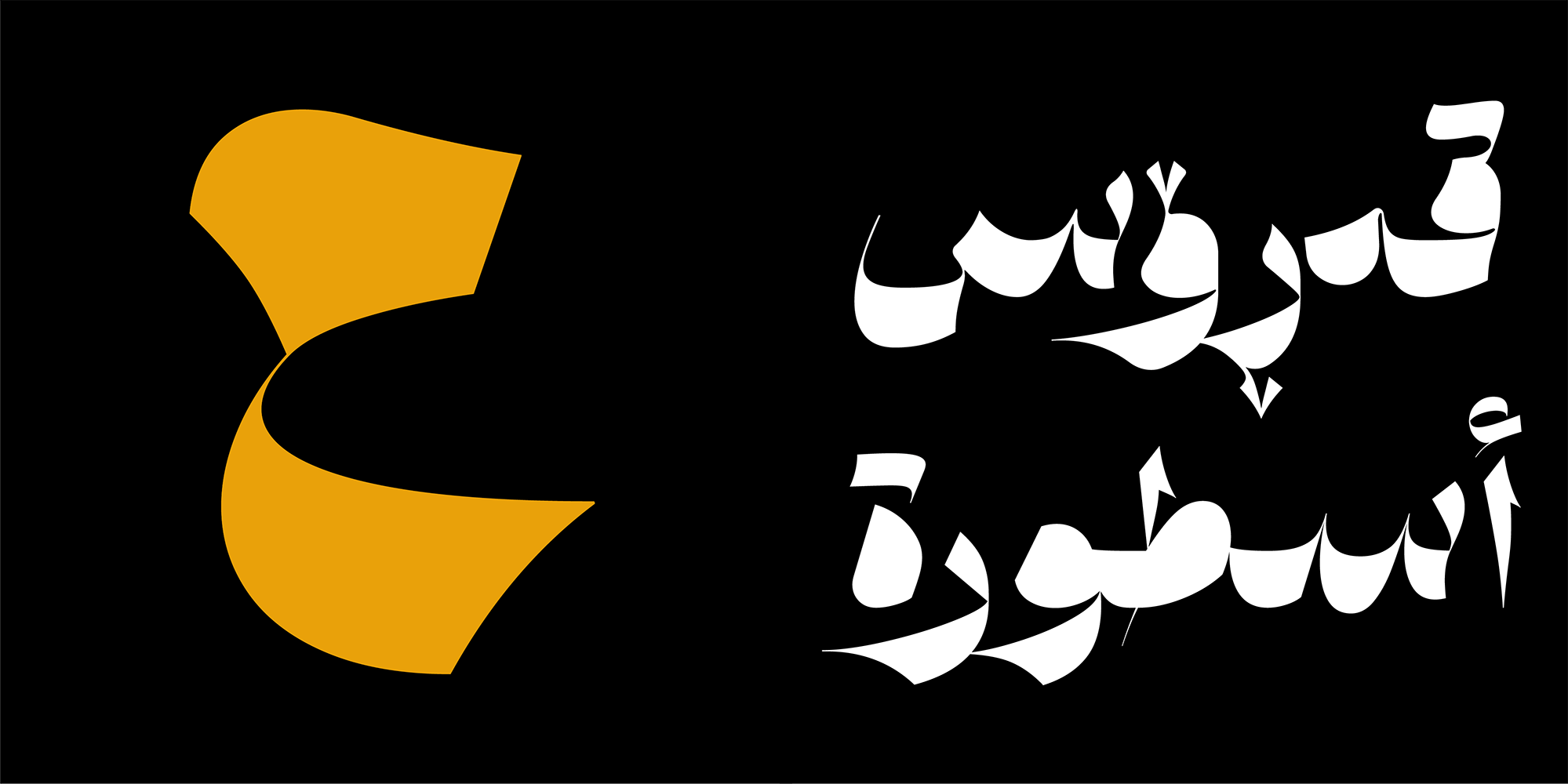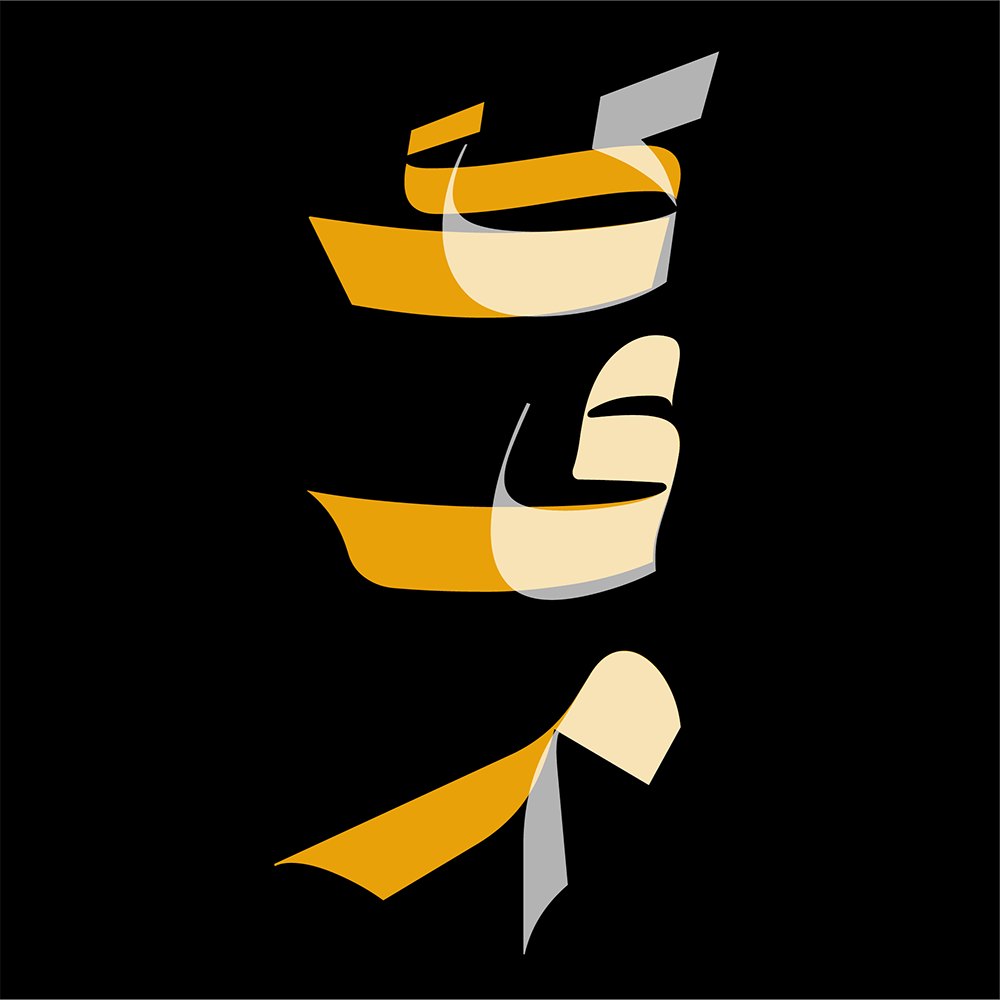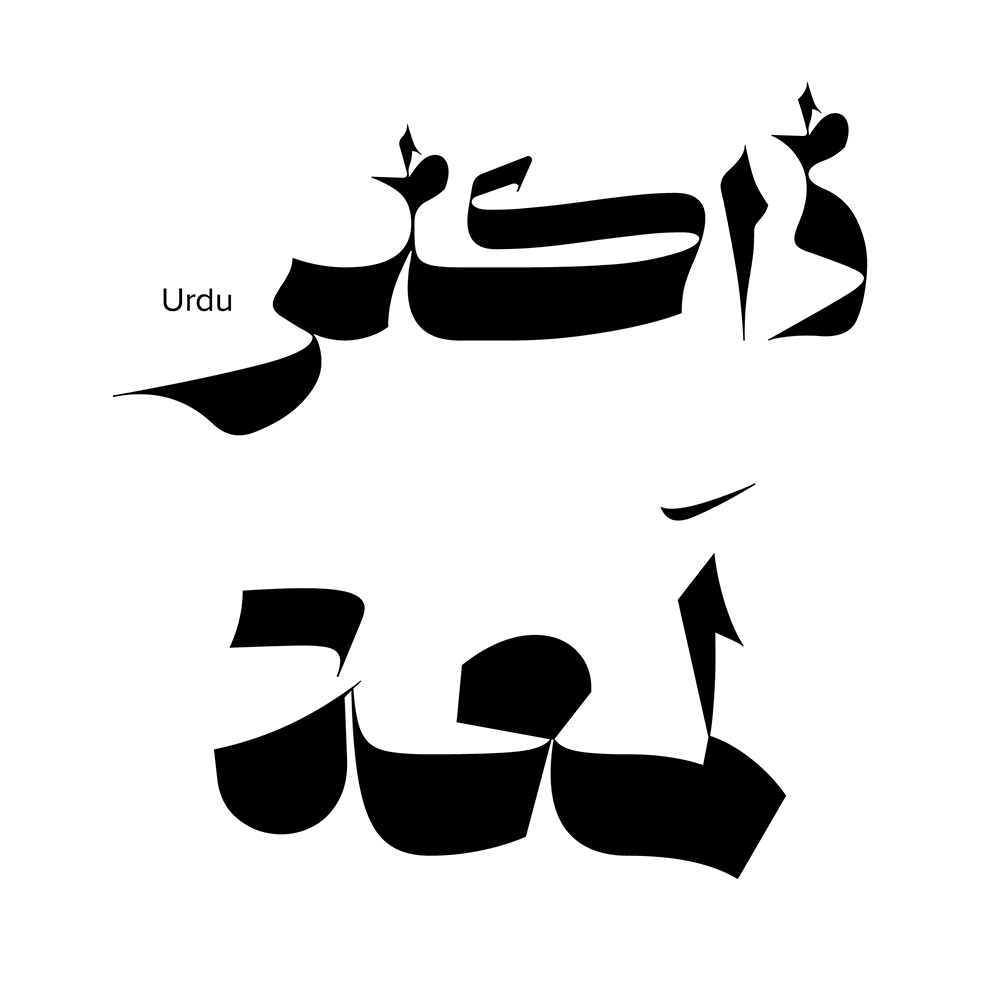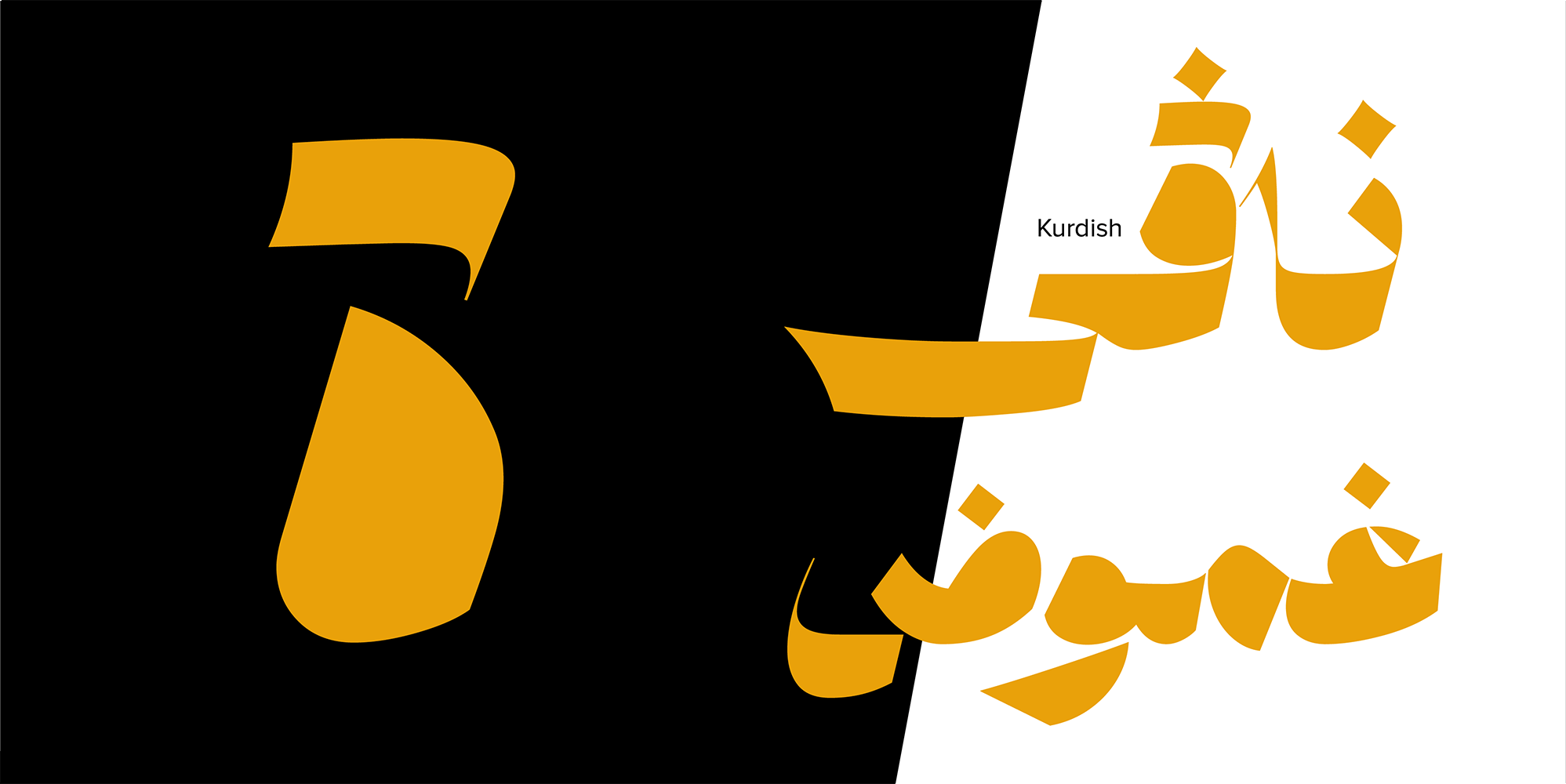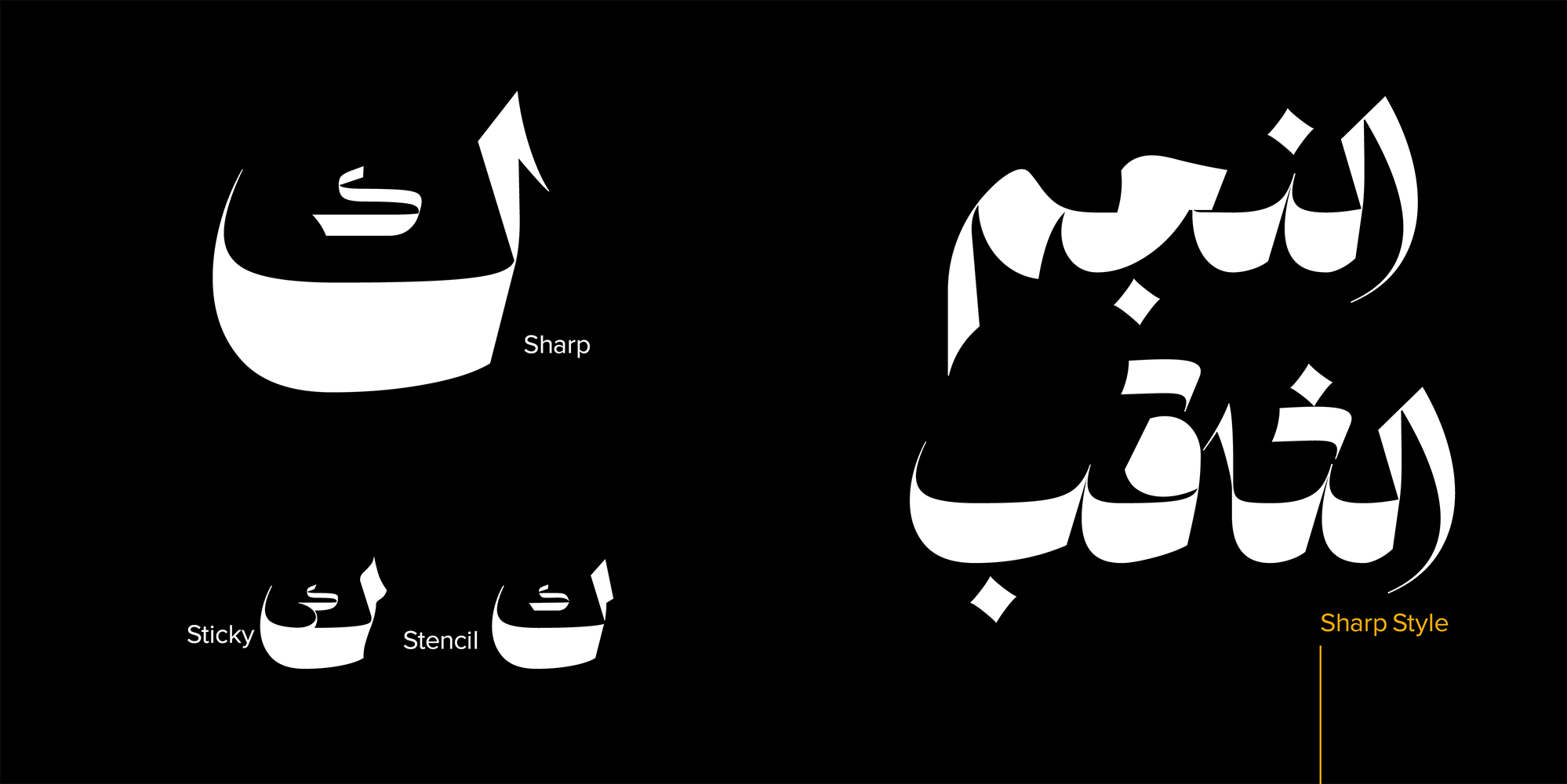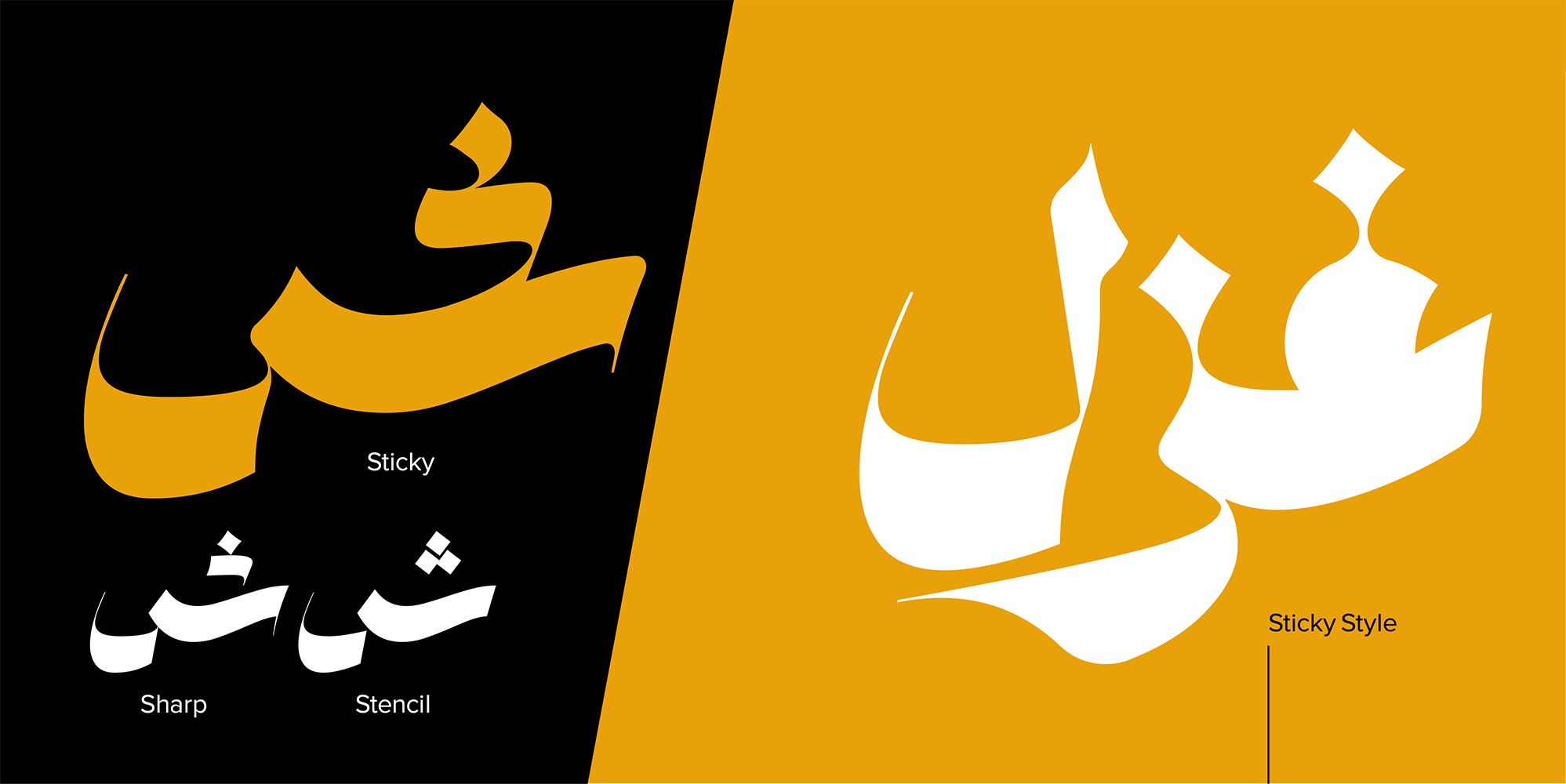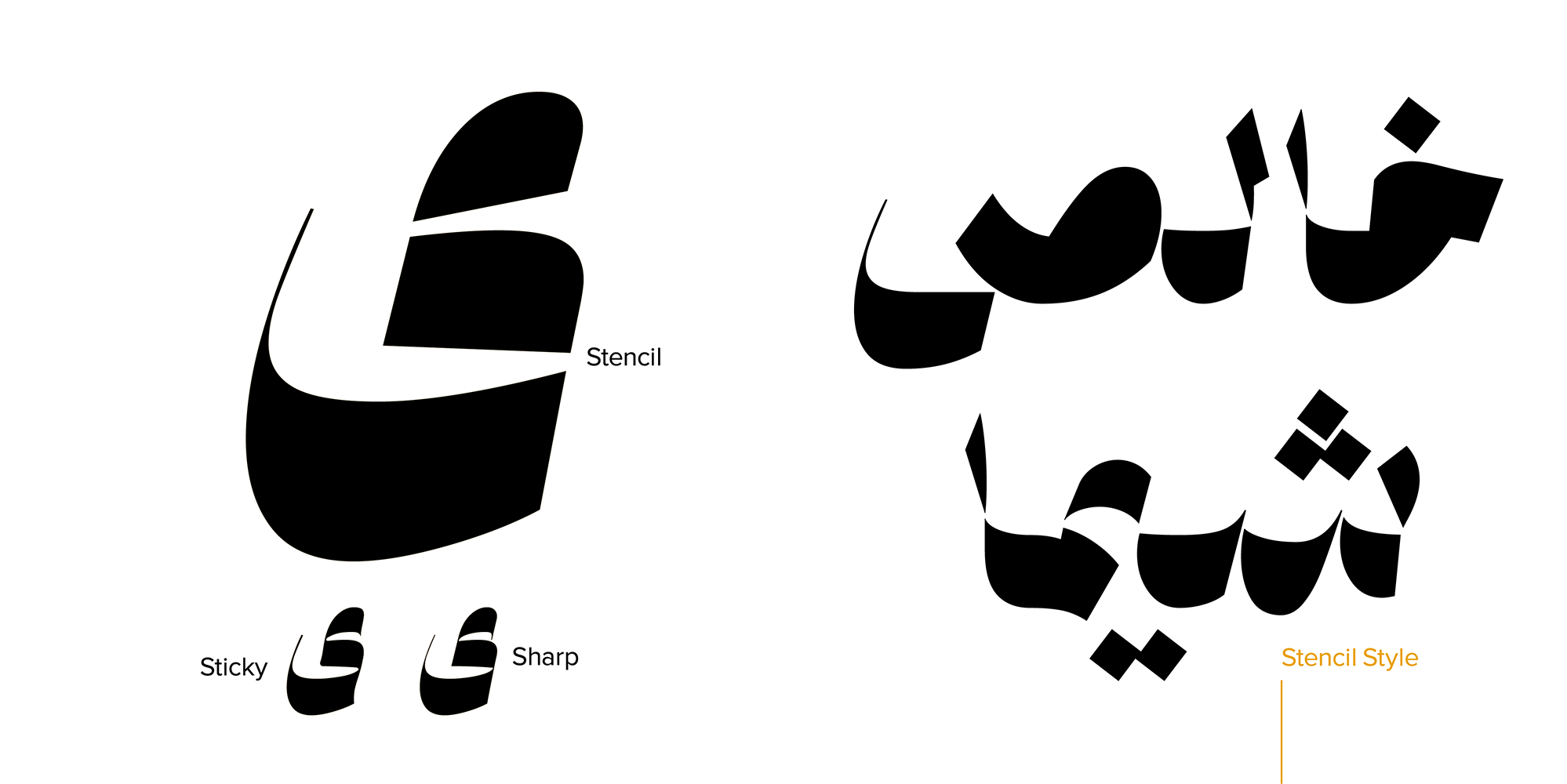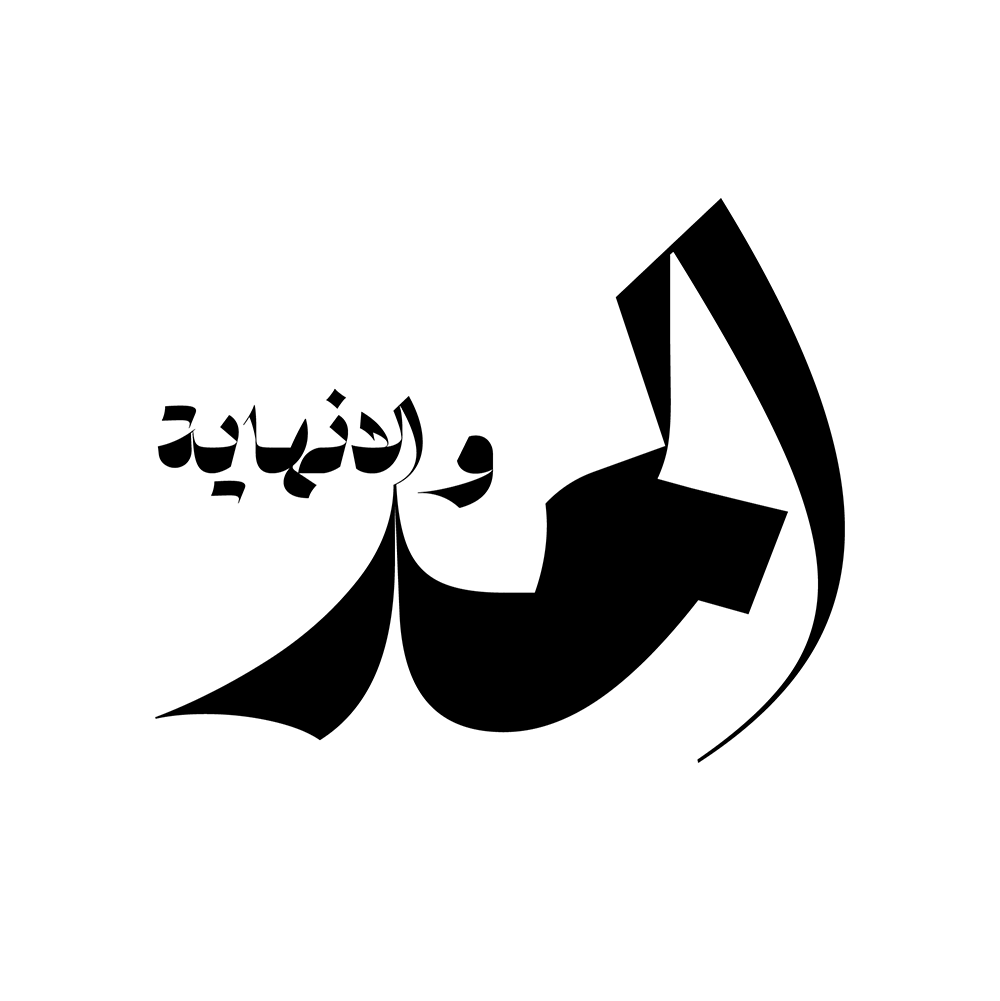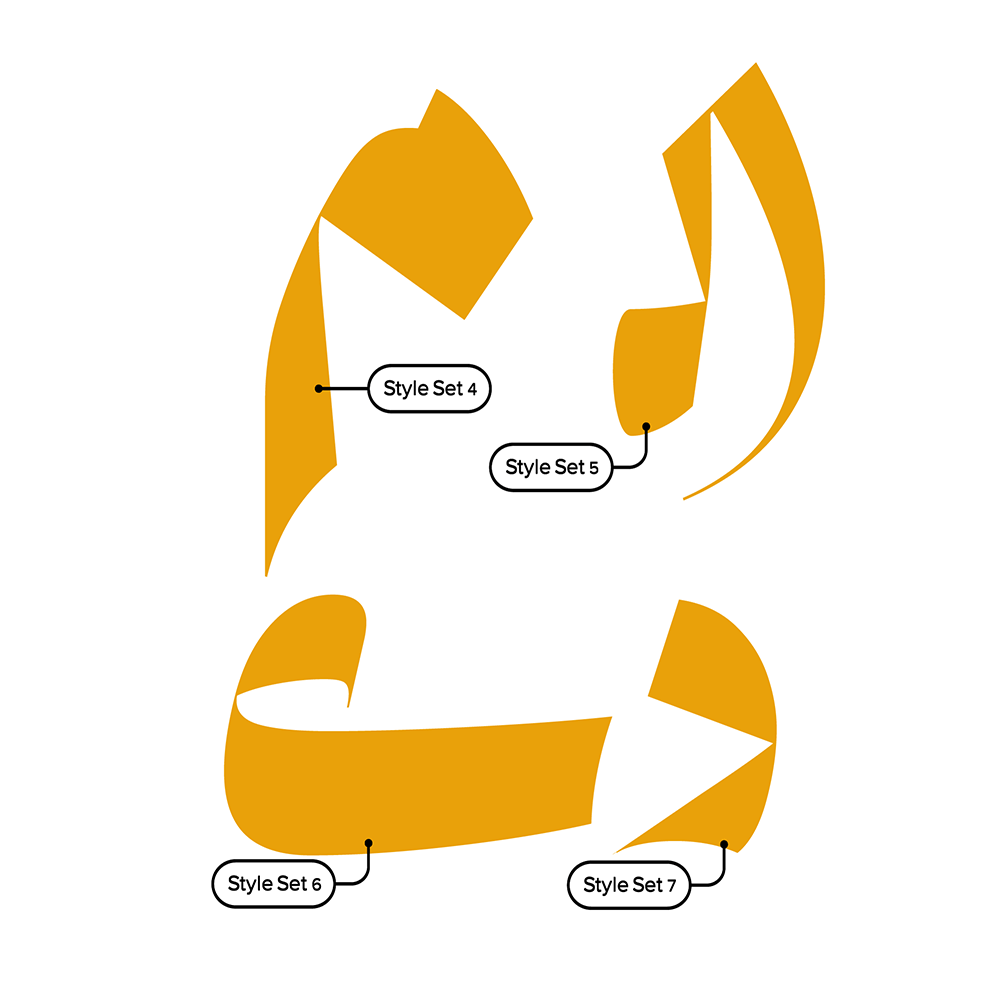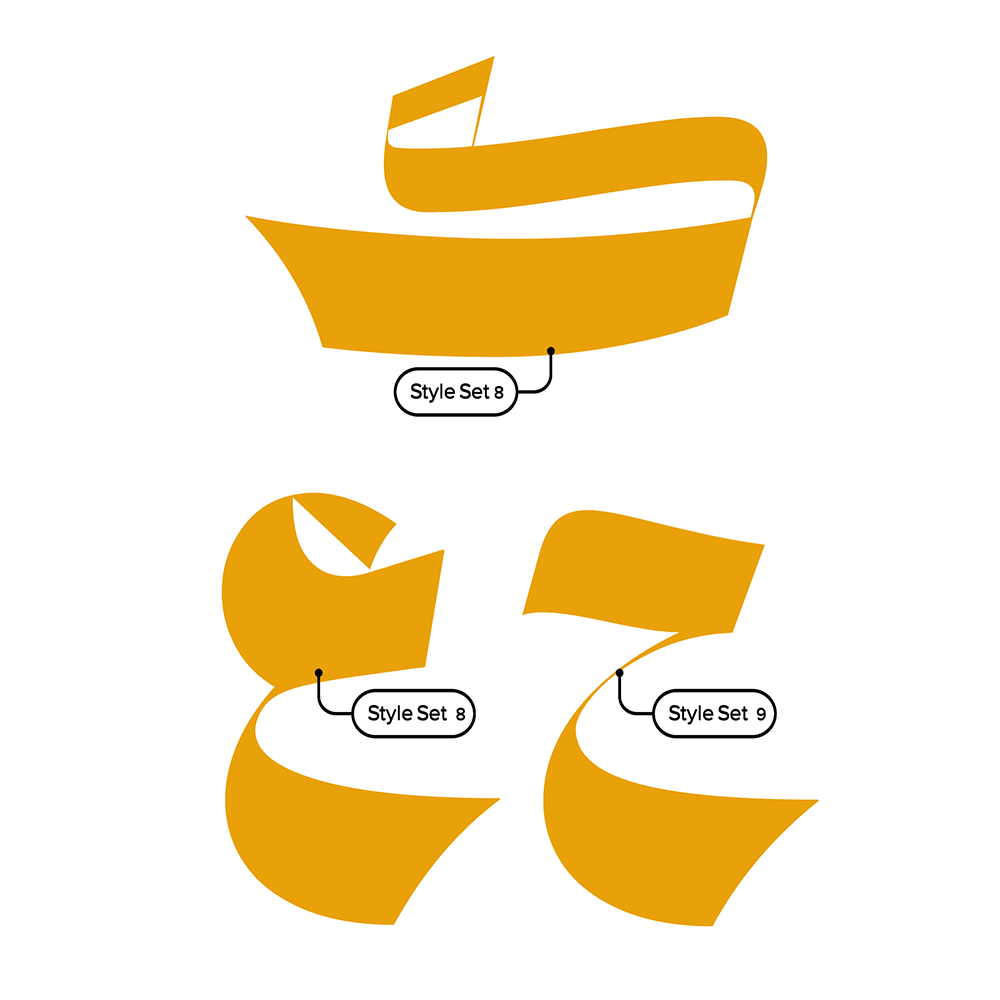
Shiveh
Shiveh is a bold, display typeface with three distinct styles. If you're looking for a headline that stands out—something daring, different, and full of personality—Shiveh has you covered. It comes in three styles:
• Sticky: Soft, stretched forms that give off a weirdly satisfying vibe somewhere between traditional and digital.
• Sharp: With sharp, strong edges—serious, tense, and ready for a fight.
• Stencil: Fully geometric, precisely structured, with clean lines and deliberate cuts that hit the eye with intensity.
Shiveh isn’t built for long texts. It’s a font meant to shine in just a few words—grab attention, make an impact, and move on. Whether it's a poster, cover, brand mark, or any bold design, Shiveh isn’t just a typeface—it’s a statement.
Inspired by traditional Naskh forms, it’s been pushed and twisted into something graphic, aggressive, and unique. There’s no balance or calm here—each style has its own attitude, but they all share one thing: they demand to be seen.